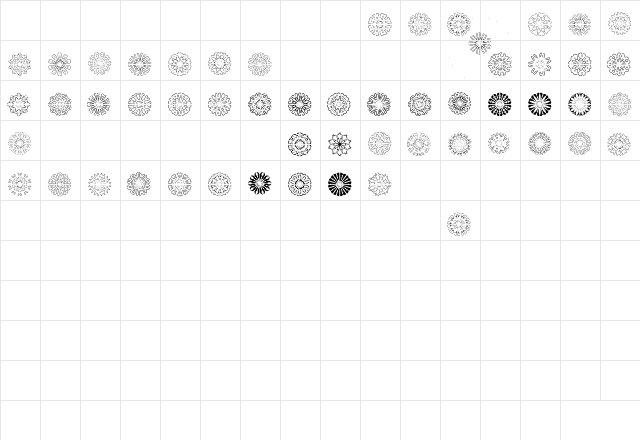
shapes Regular
Design Context for shapes Typeface
shapes is a composed and adaptable typeface that performs quietly and consistently across a wide range of design contexts.